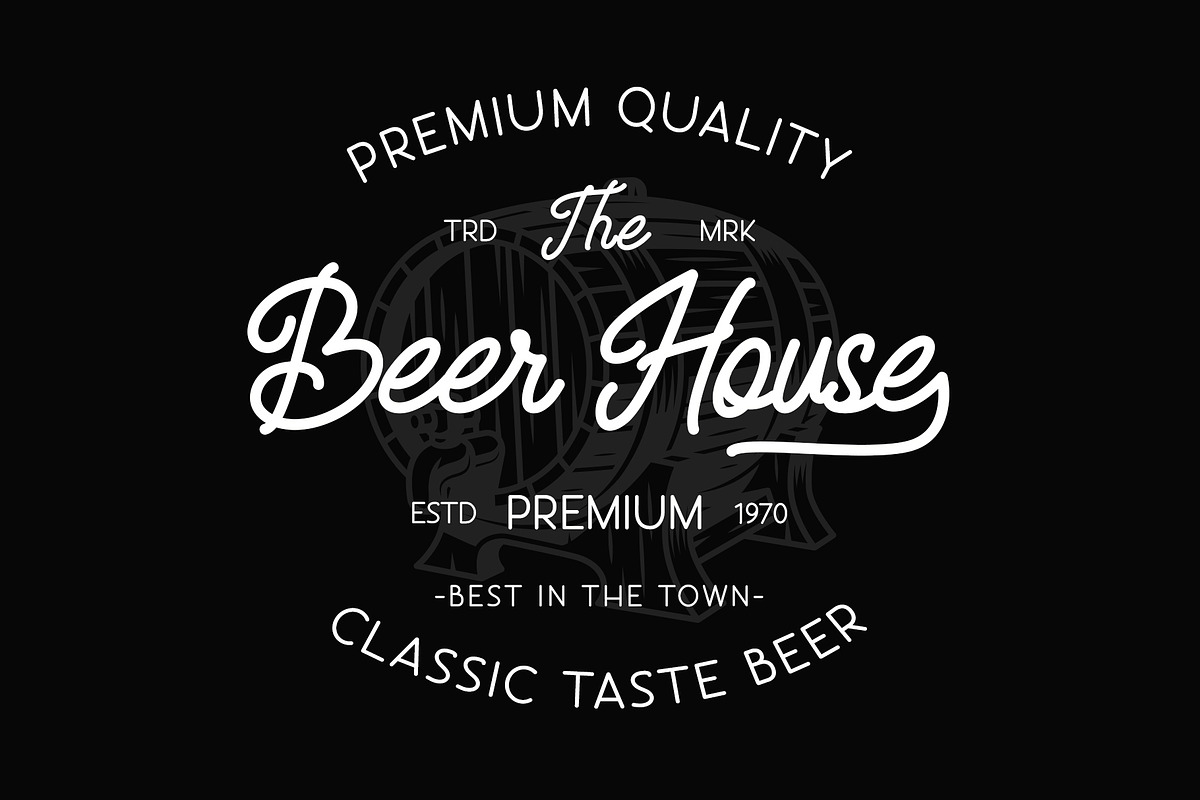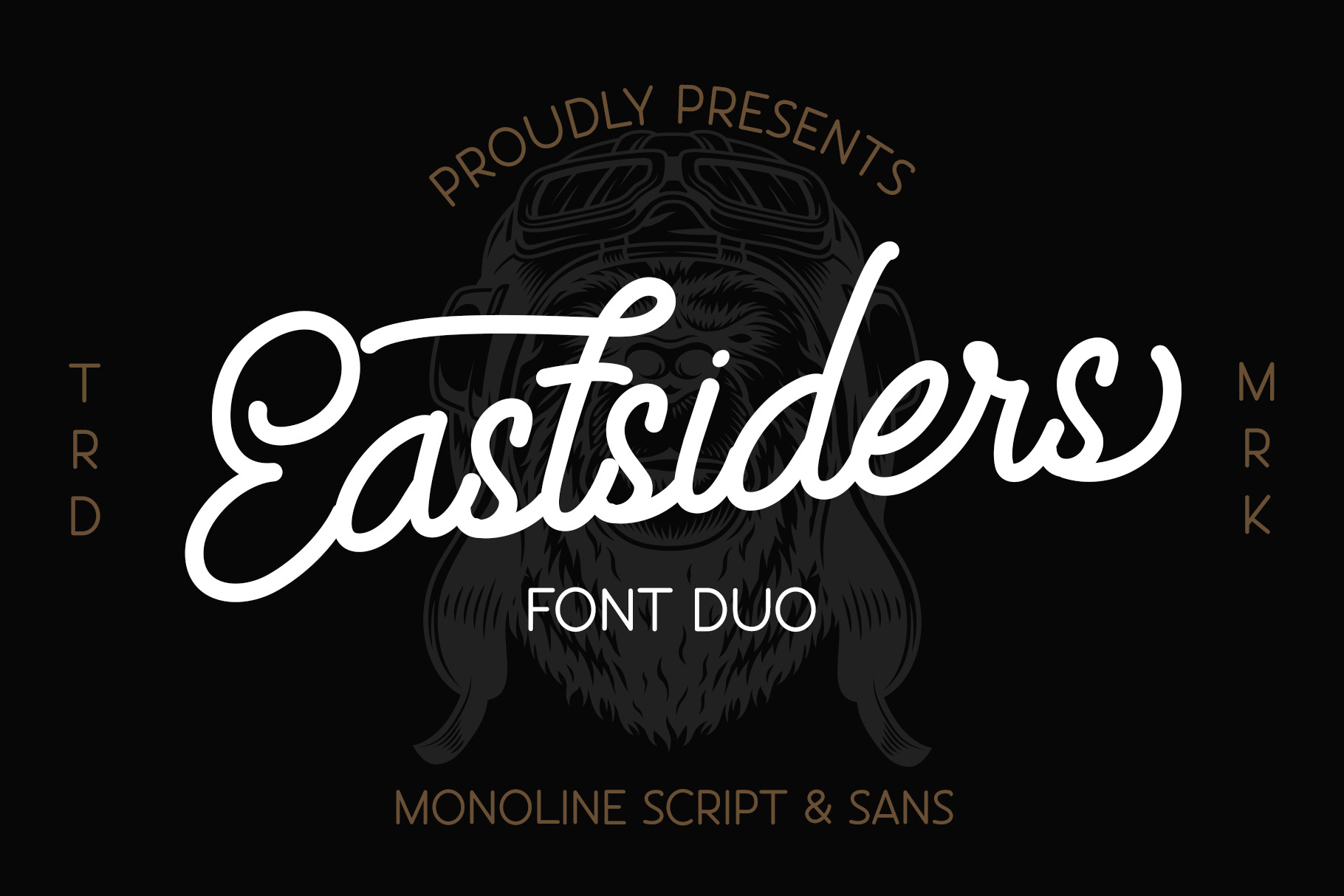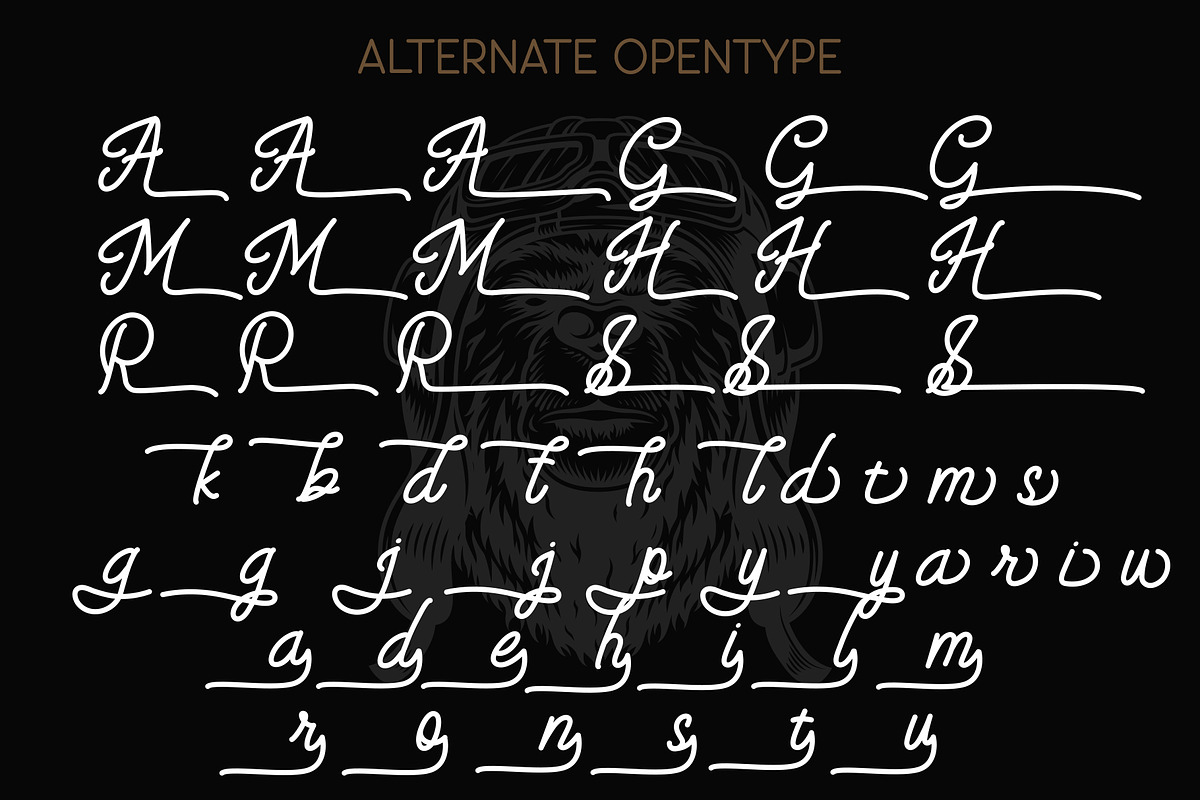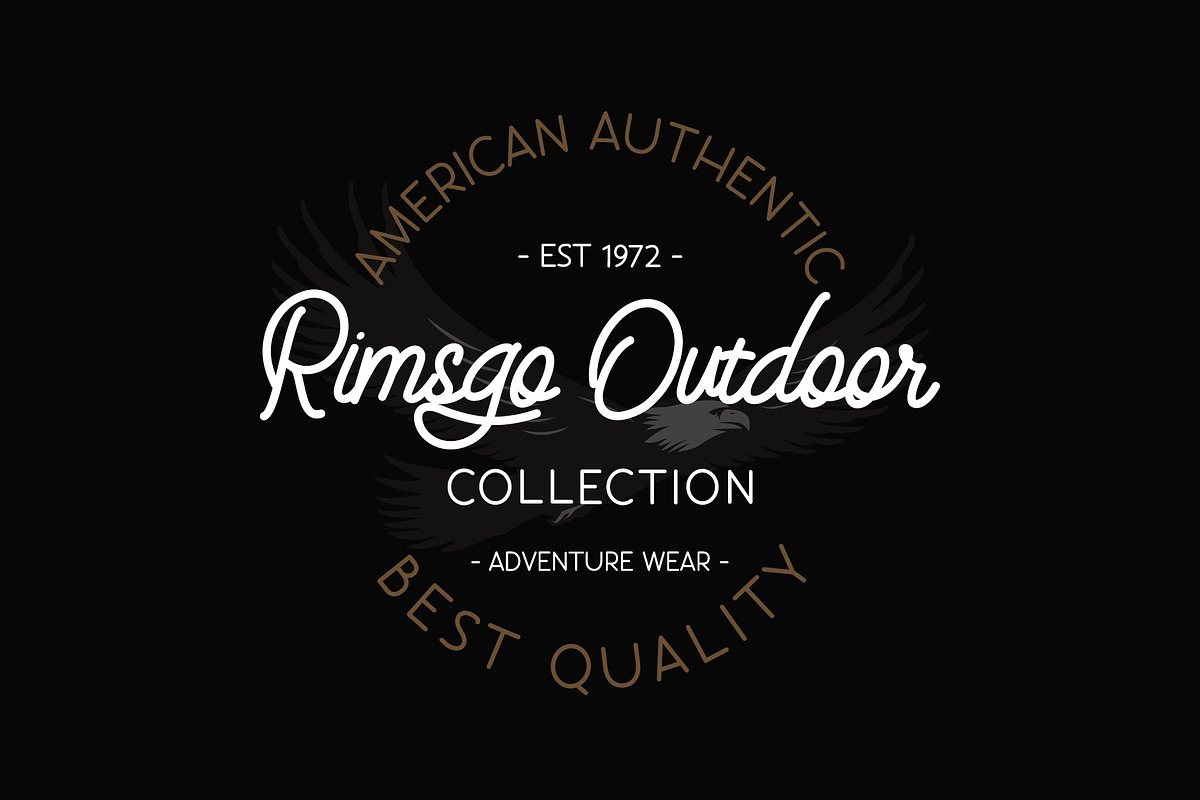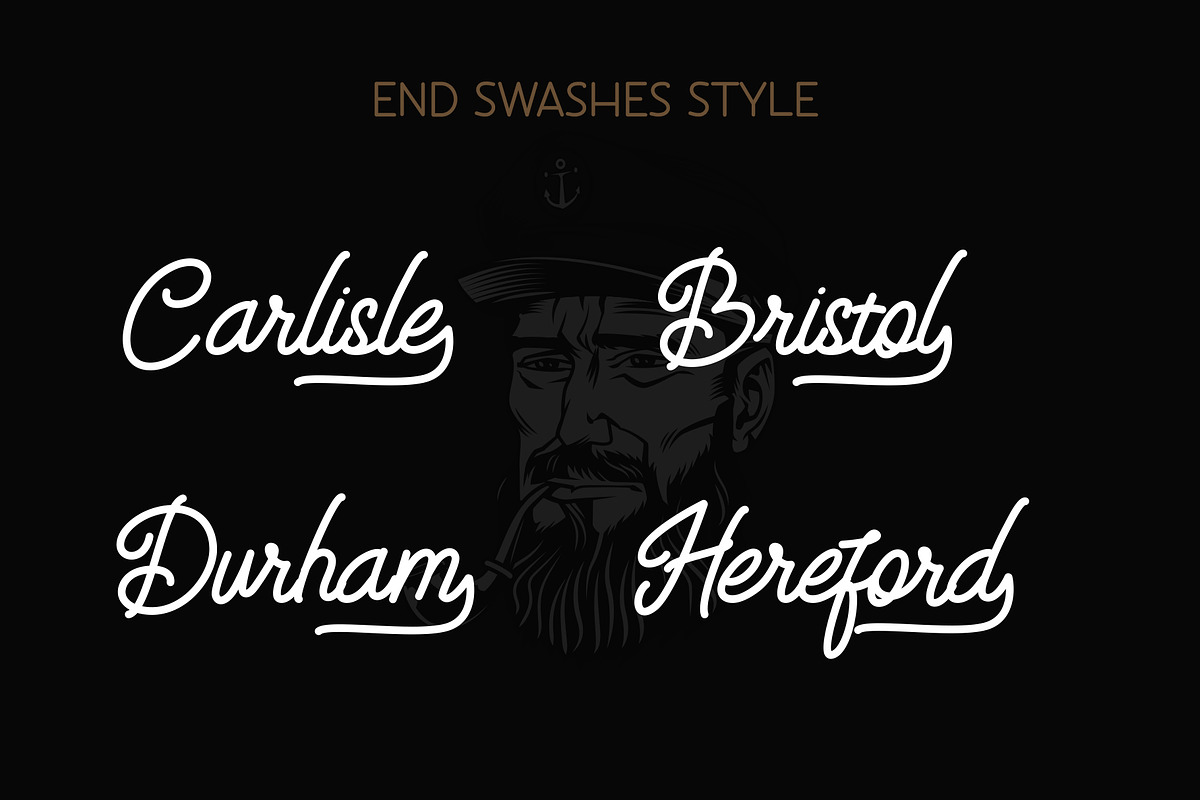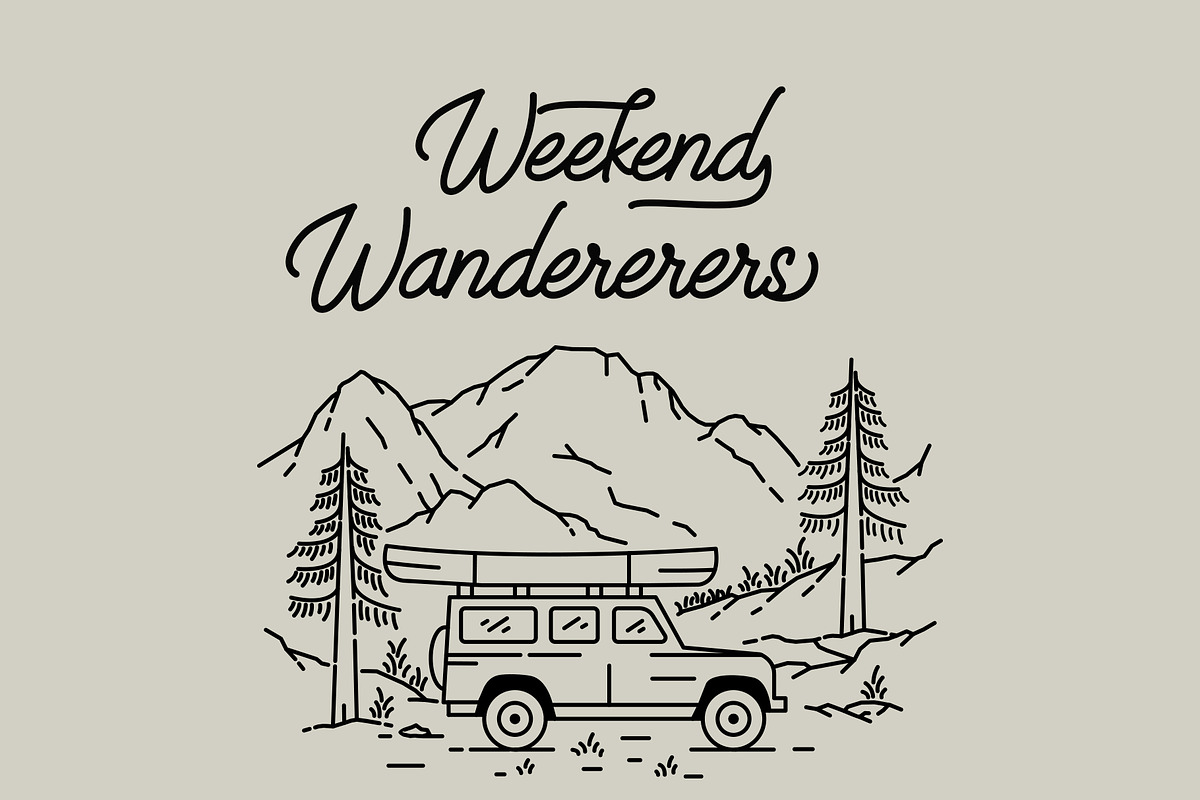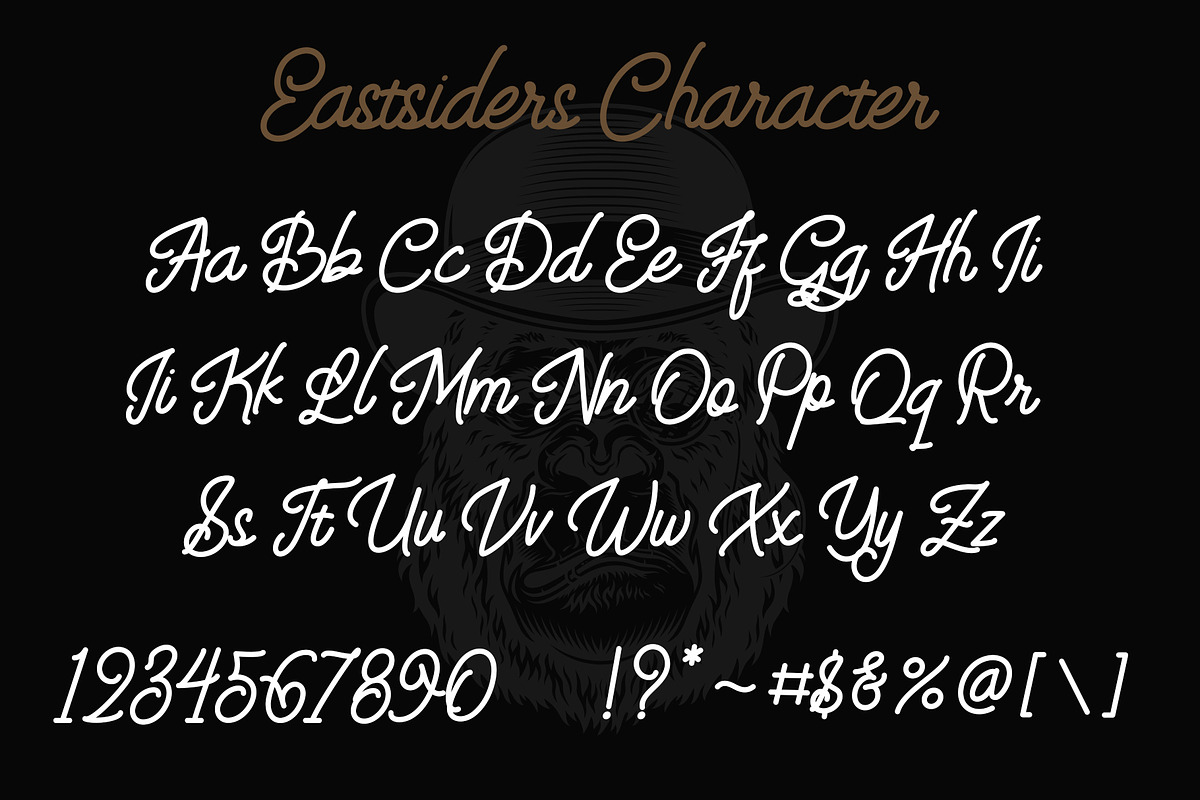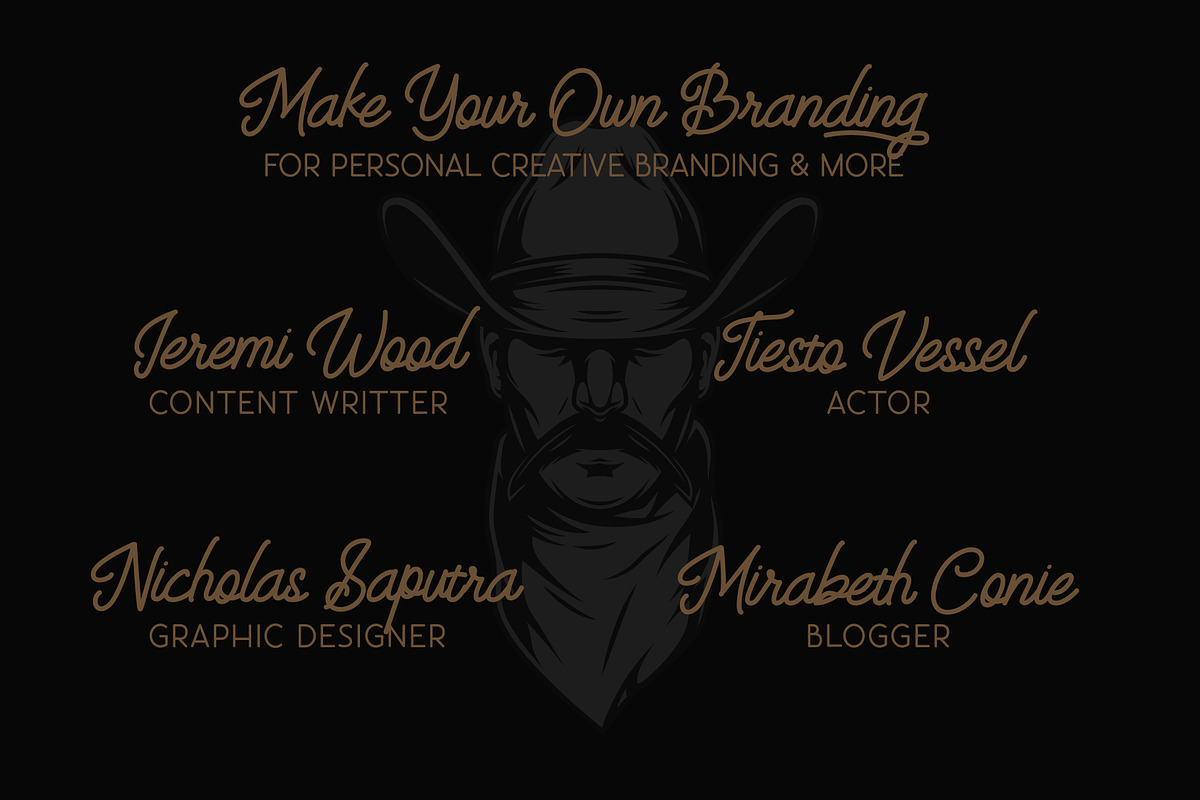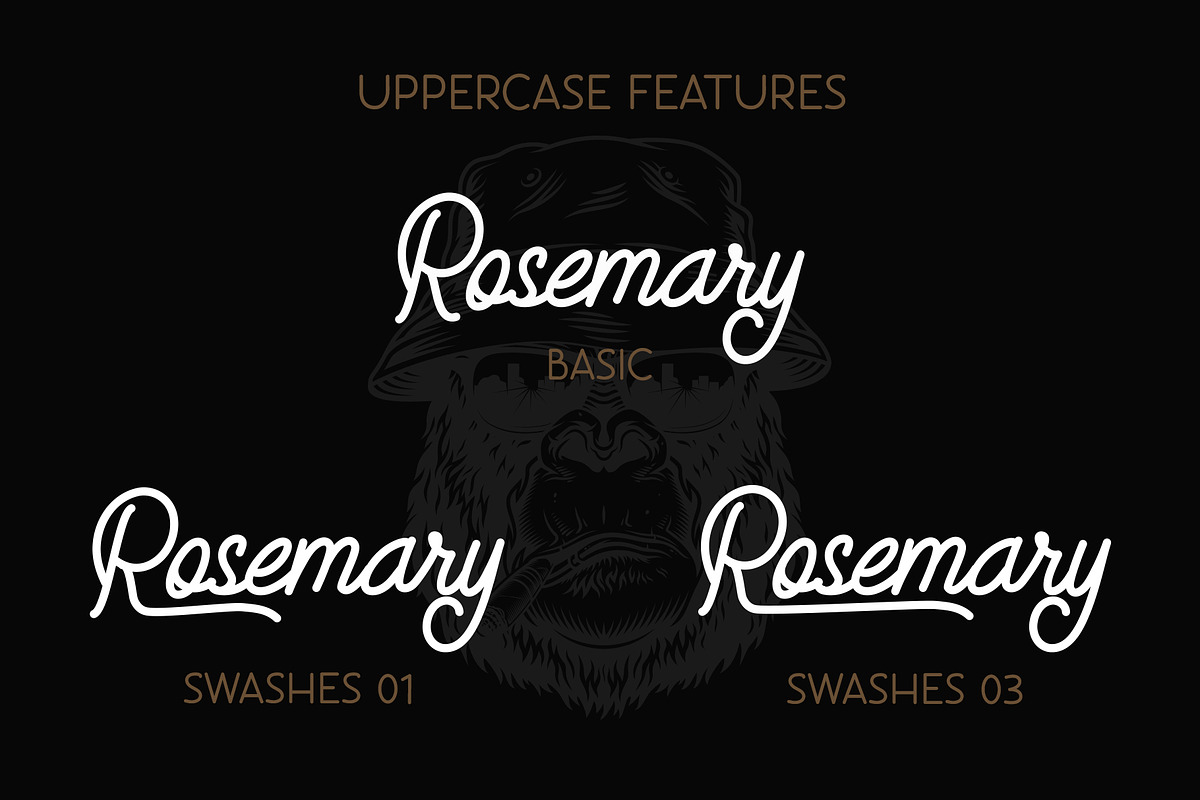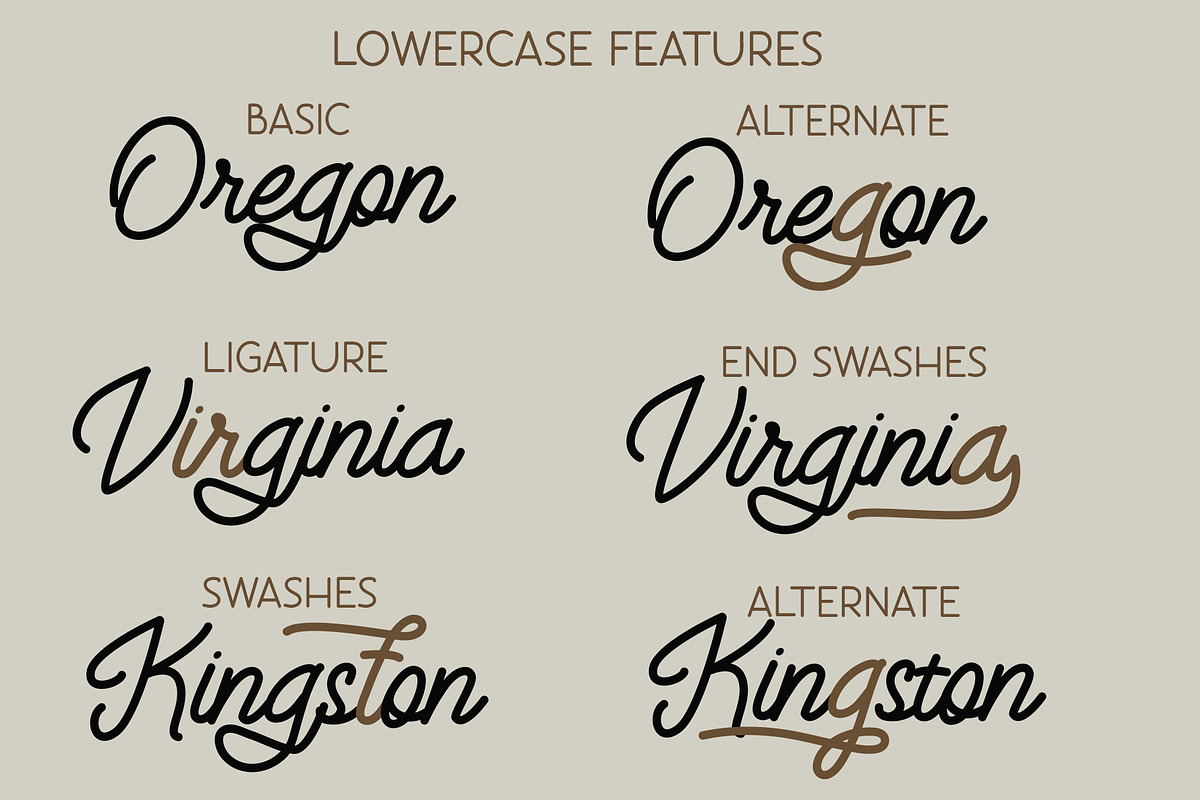
Eastsiders - Monoline Font Duo
Eastsiders is Font duo with monoline script and monoline sans. it's inspired from a minimalist handcrafted aesthetic that pairs so well with monoline illustrations. The script font have a smooth edges, so it will bring a amazing handwriting looked like.
Eastsiders has an elegant and stunning as a display which makes it perfecf for branding projects, logos, wedding designs, social media posts, advertisements, product packaging, product designs, label, photography, watermark, invitation, stationery and any projects that need handwriting taste.
- Ligature and Alternate